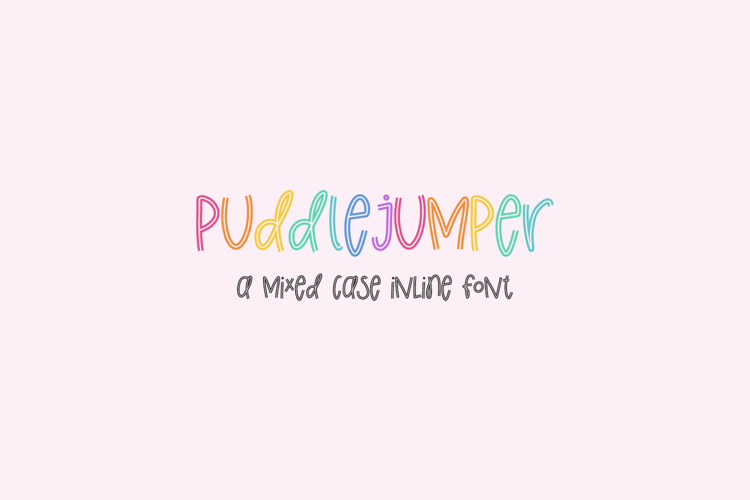
Puddlejumper Sans is a whimsical inline font. Puddlejumper is mixed case and truly fun & playful. It’s a great fit for Cricut projects, Silhouette projects, designing SVG files, laser cutting projects, & more.